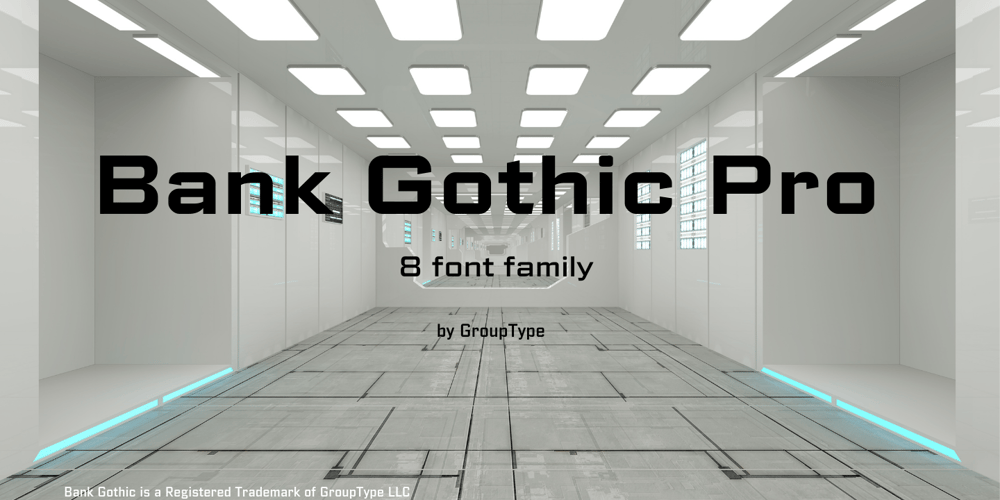
Bank Gothic
Bank Gothic font
Bank Gothic Font Family was designed by Morris Fuller Benton and published by GroupType. Bank Gothic contains 8 styles and family package options. If there was an American Typeface Hall of Fame, Bank Gothic, designed by the great Morris Fuller Benton would hold a place of special distinction considering this design has survived so many trends in typographic fashion since being introduced in 1930. Its just as desirable today as it was over eighty years ago; arguably more. Today, Bank Gothic is a very popular choice as a titling face for science fiction books, posters and countless television and movie titles. It is also a popular typeface for use in computer games and digital graphics. GroupType’s 2010 revival of this American classic is true to the design, the period, and Benton’s aesthetic. GroupType worked with some of the most talented and experienced type designers that were historically grounded and sensitive to this design project. Fortunately, Mr. Benton has left us a large selection of other great typefaces for insight and guidance. GroupType’s new revival includes the original three weights in regular and condensed style plus two new distressed fonts. All have a new small cap and lowercase in each font necessary for 21st century typography.